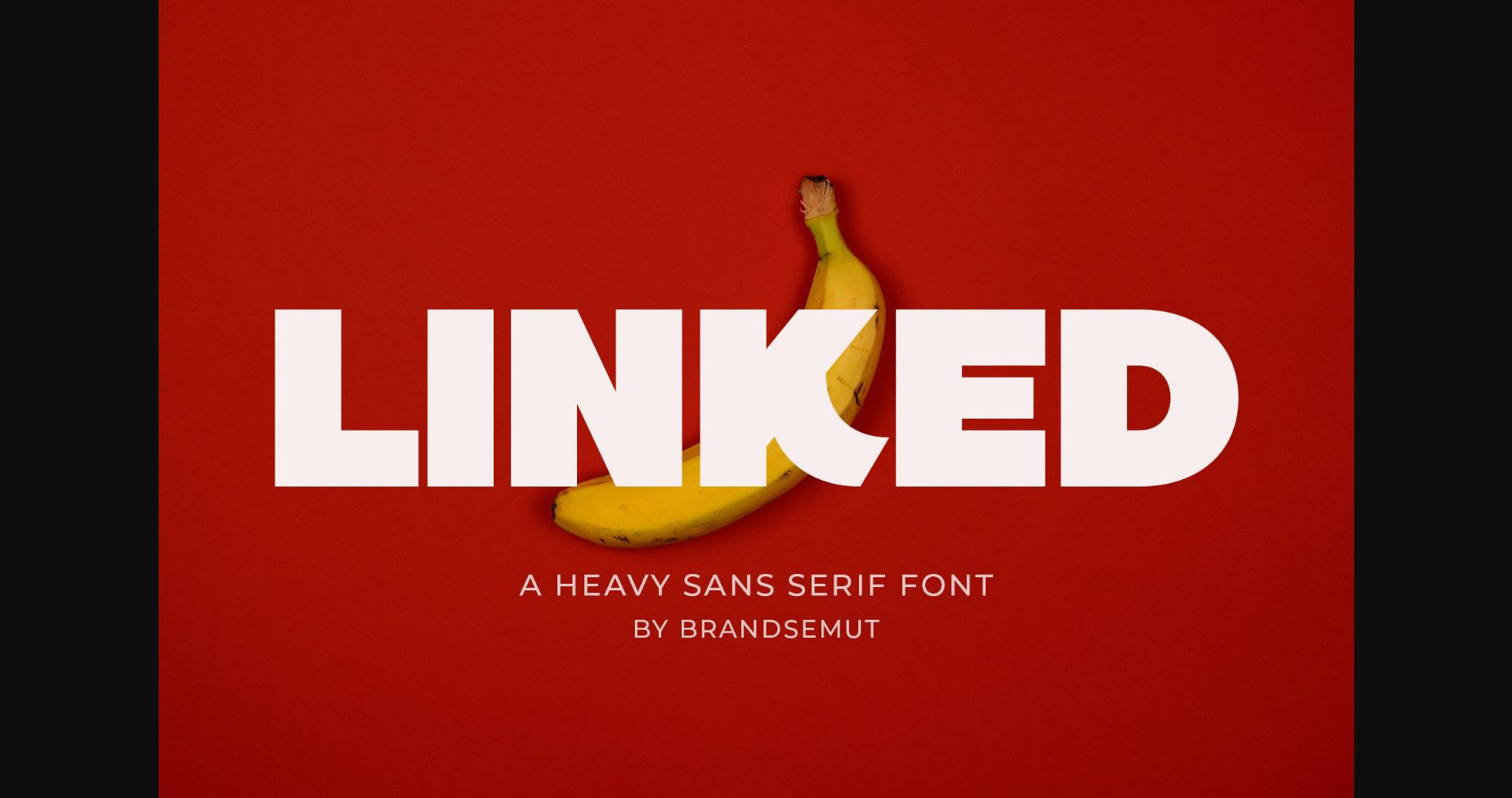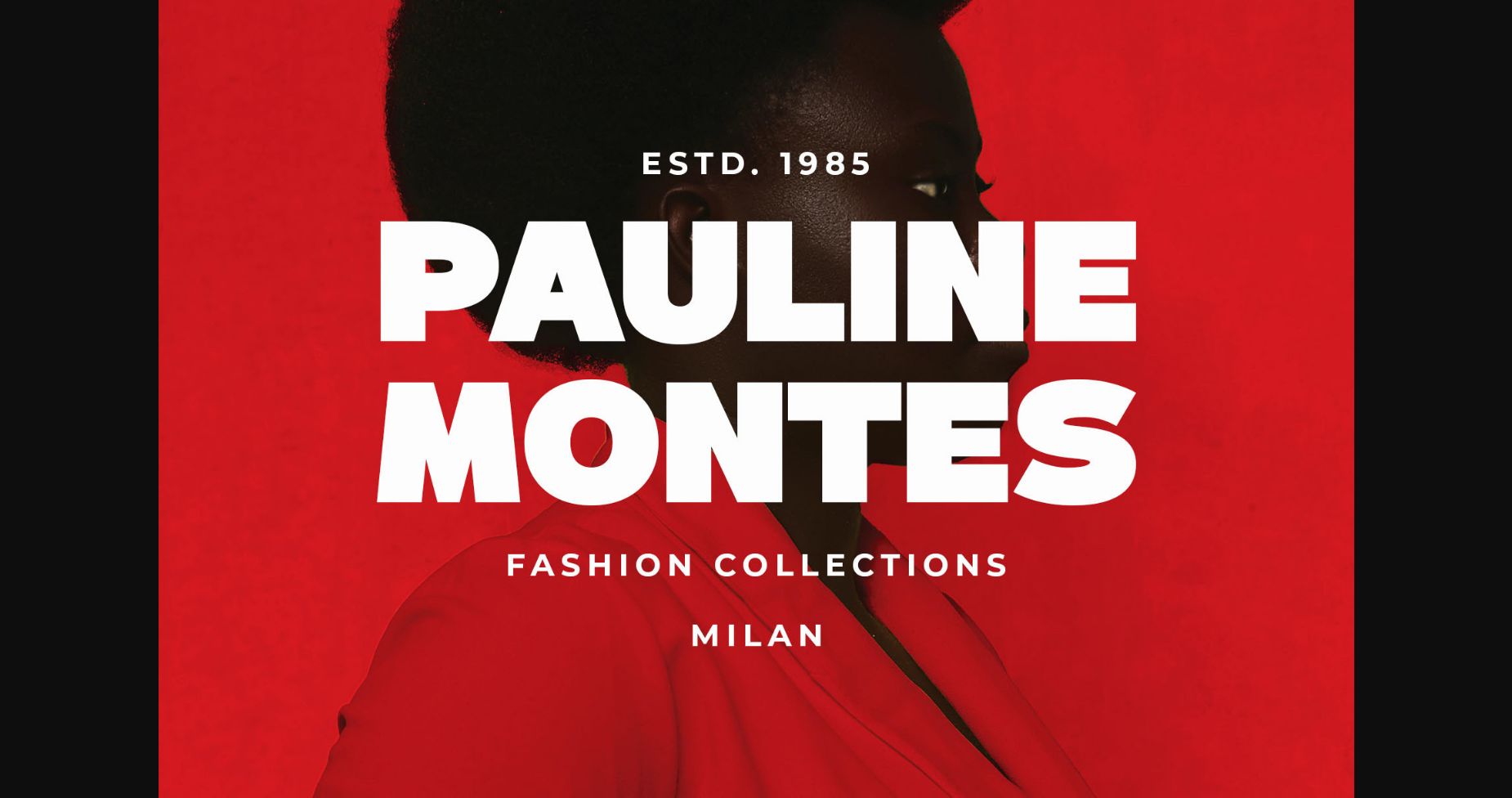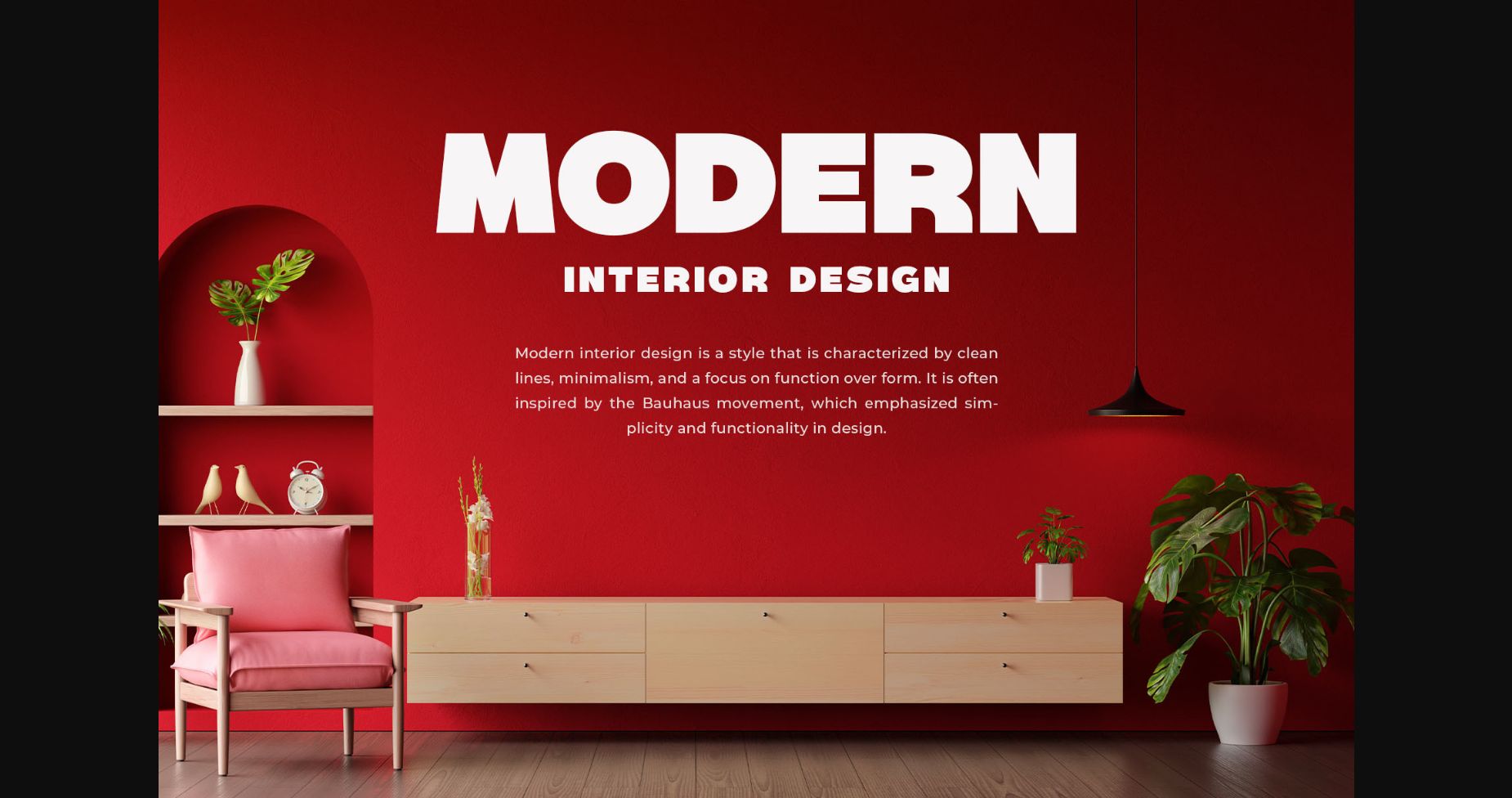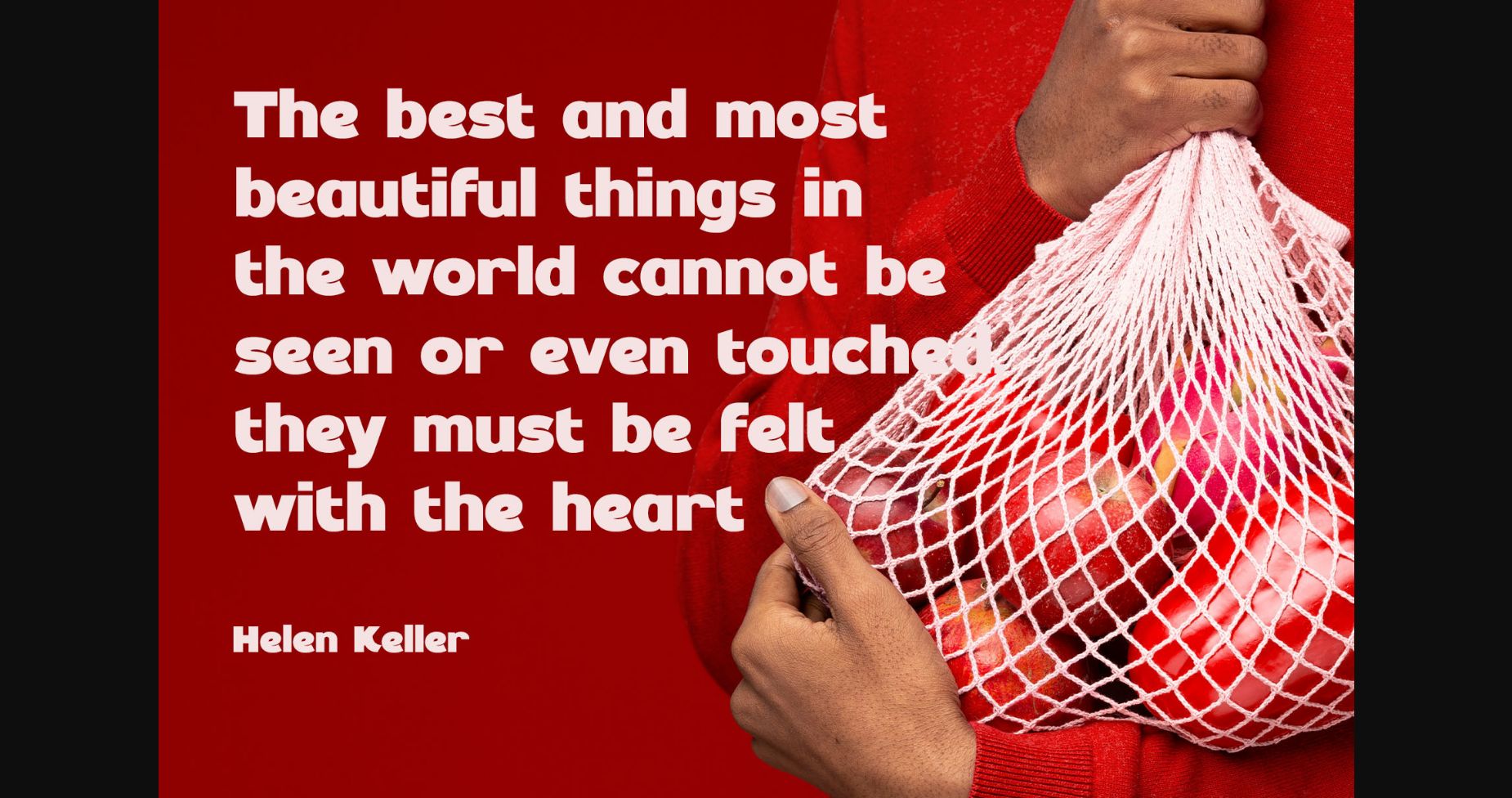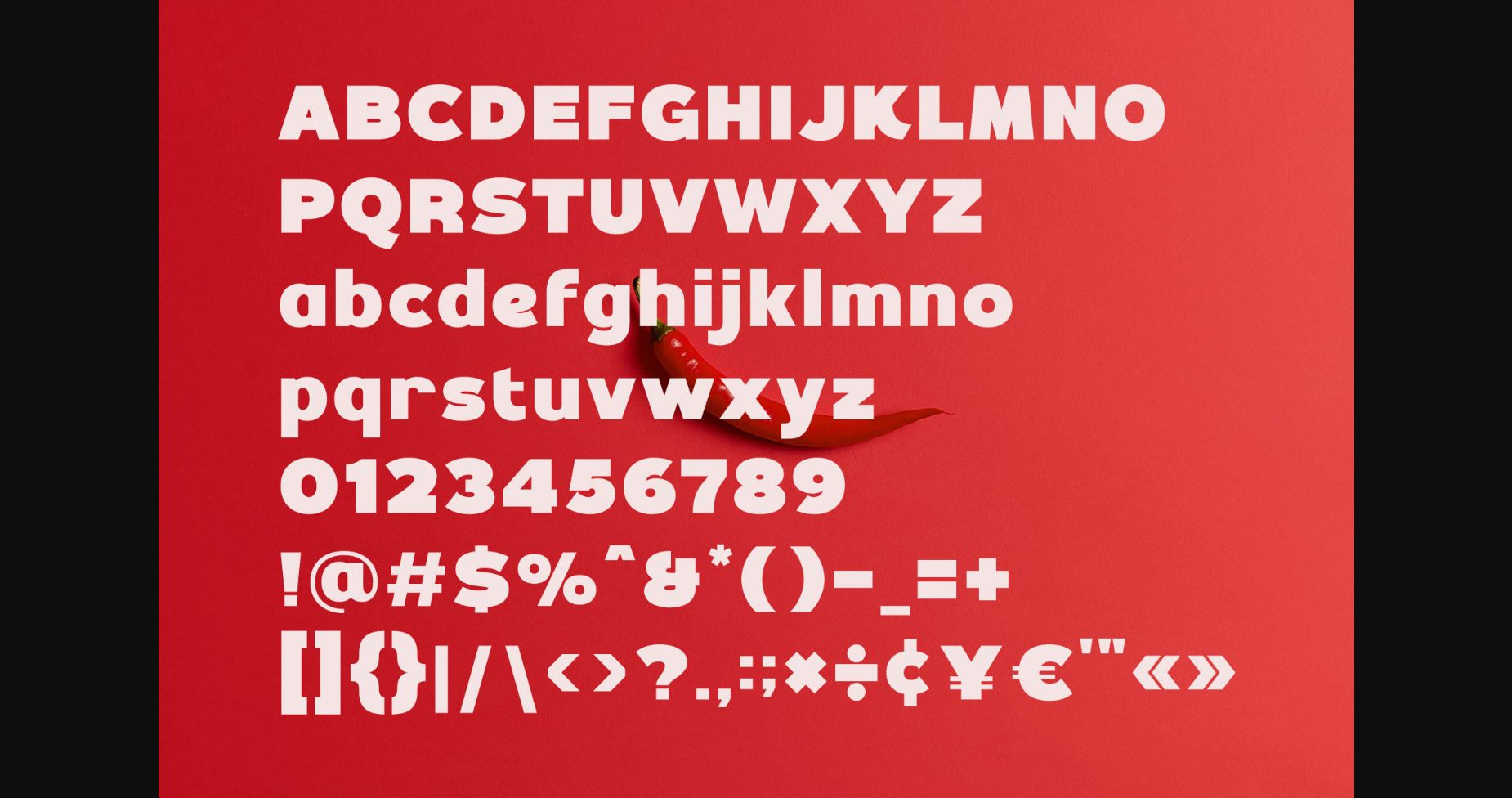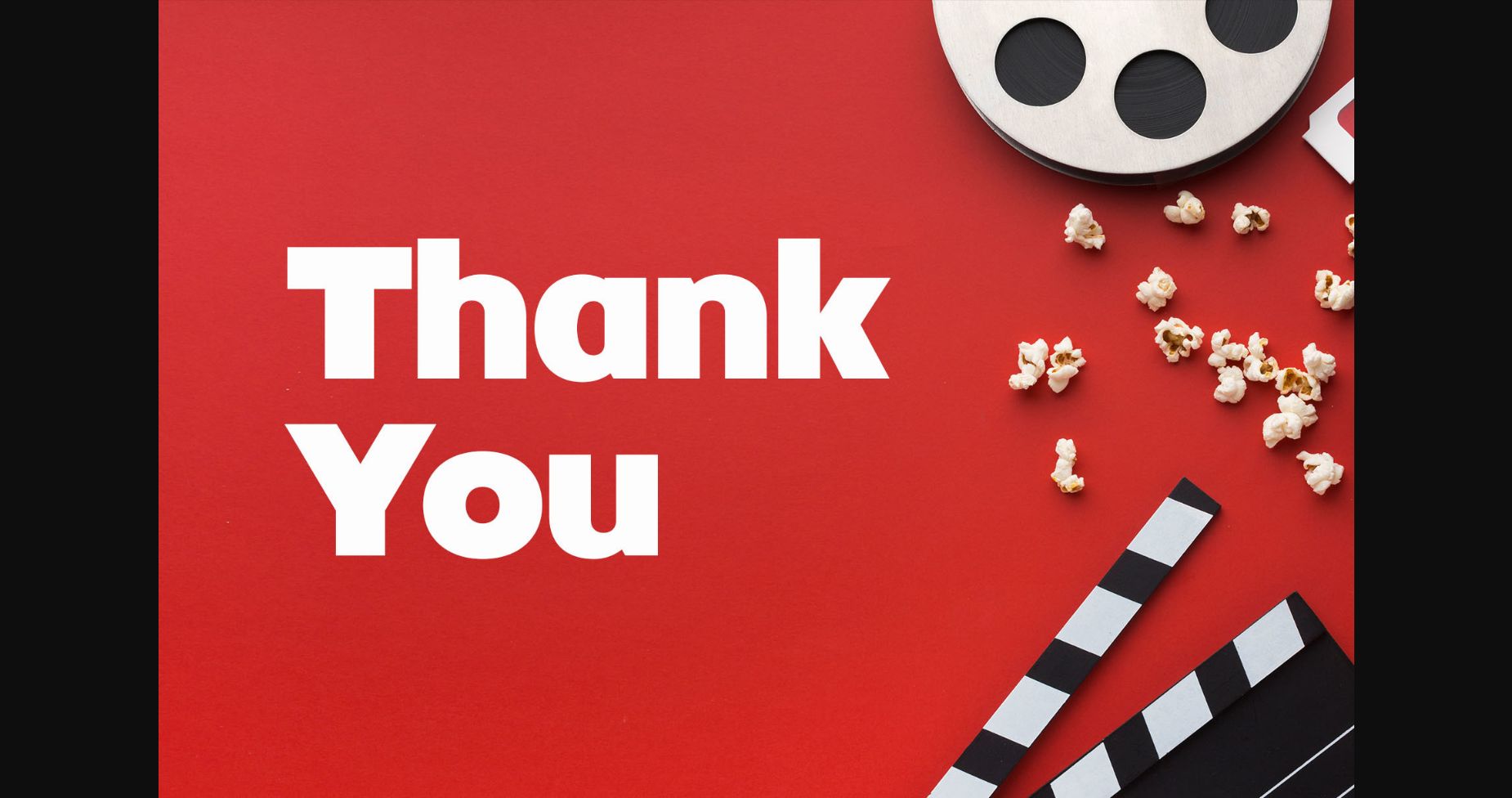
Linked Font
About Linked Font
Introducing Linked A Heavy Sans Serif
Linked is a modern and simple font, best used as a display for headings, logos, branding, magazines, product packaging, and invitations. Linked comes with clean lines and smooth curves giving any project an extra touch of class.